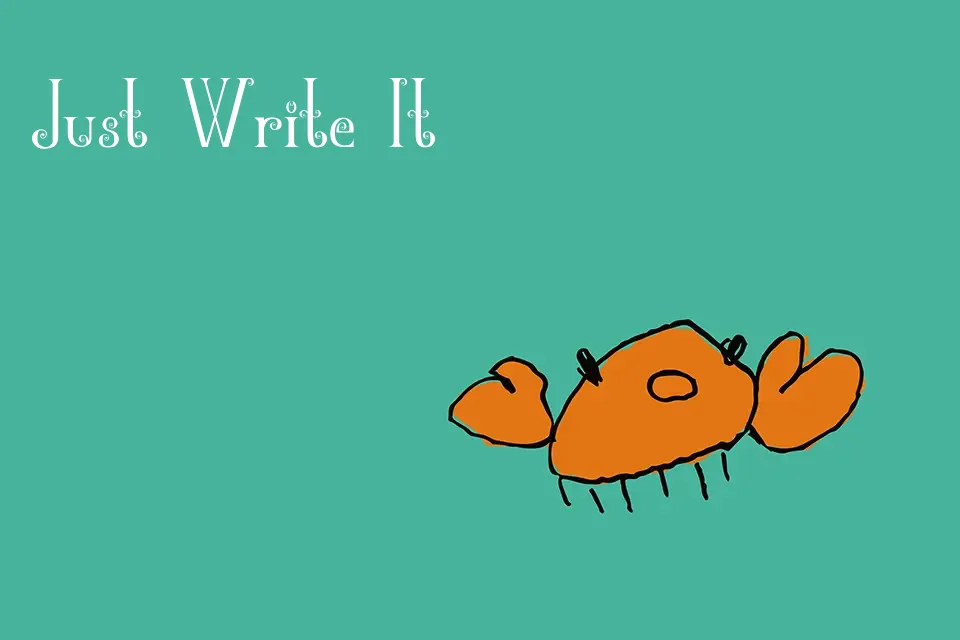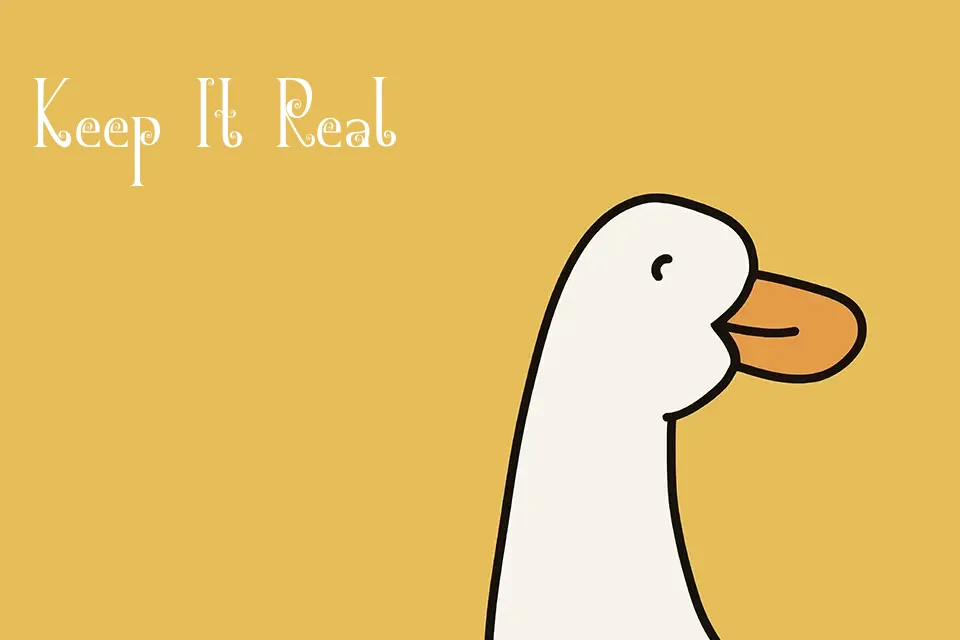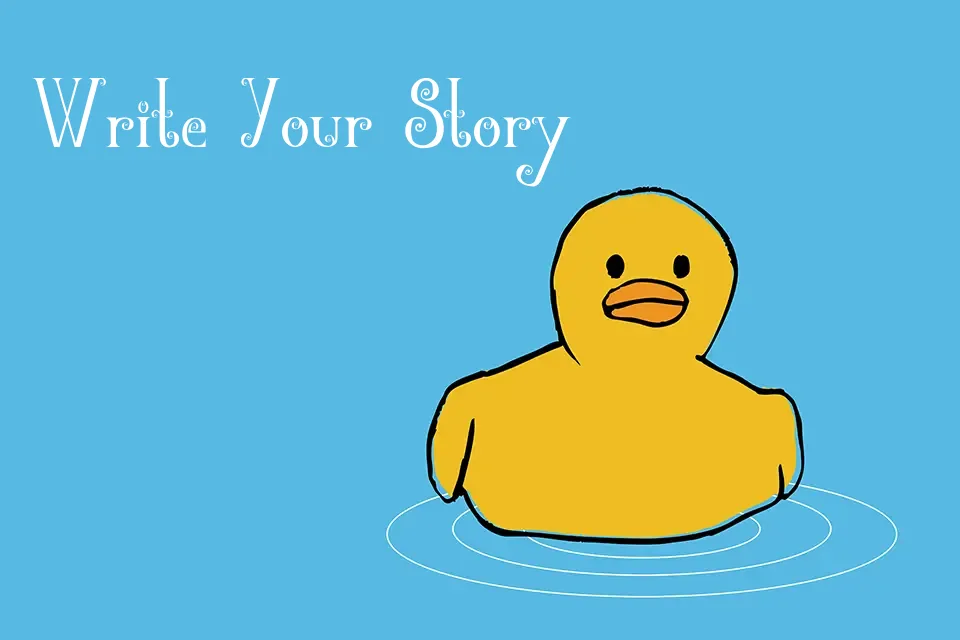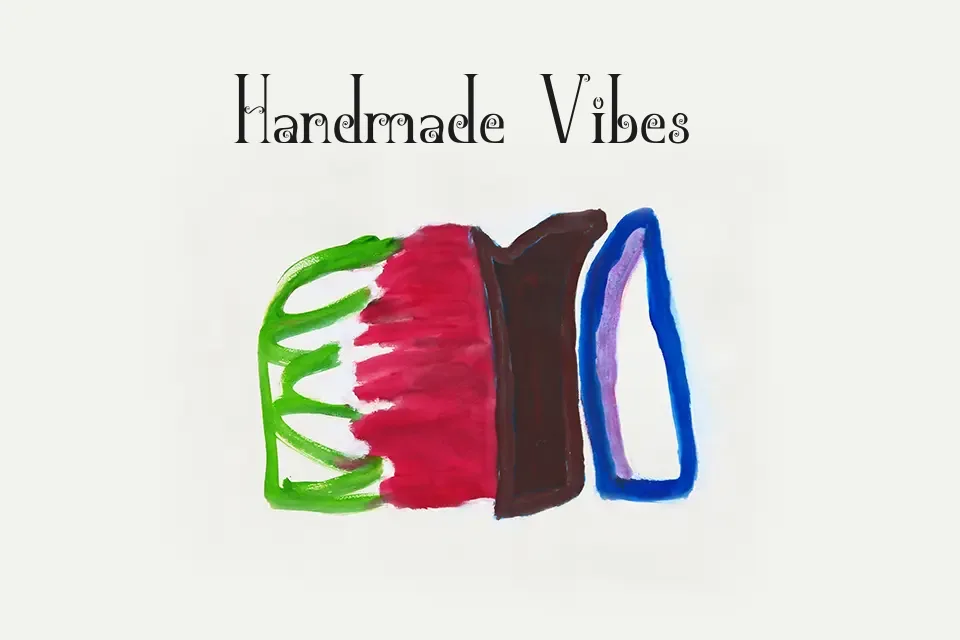
Black Flowers Blossom Font
Black Flowers Blossom is a beautifully crafted decorative typeface that brings a whimsical and curly personality to your designs. Characterized by sweeping strokes, playful loops, and a distinctive handwritten texture, it delivers a deeply feminine and creative impression. This font excels at personalizing wedding invitations, boutique packaging, or enchanting children’s book covers where a friendly, handcrafted touch adds value. However, due to its highly stylized loops and uneven baseline, it falls short in small body text or dense paragraphs where readability becomes compromised. Compared to traditional formal scripts, this typeface feels much more relaxed and approachable. It serves as a strong focal point for standout headlines that demand attention without coming across as overly serious.
Boutique product packaging
Whimsical children’s book titles
Playful event invitations
Feminine lifestyle branding
Lengthy paragraphs or body copy
Corporate or formal business documents
Small-scale mobile UI elements
Perfect for branding, invitation, and kids, with a creative and decorative style.